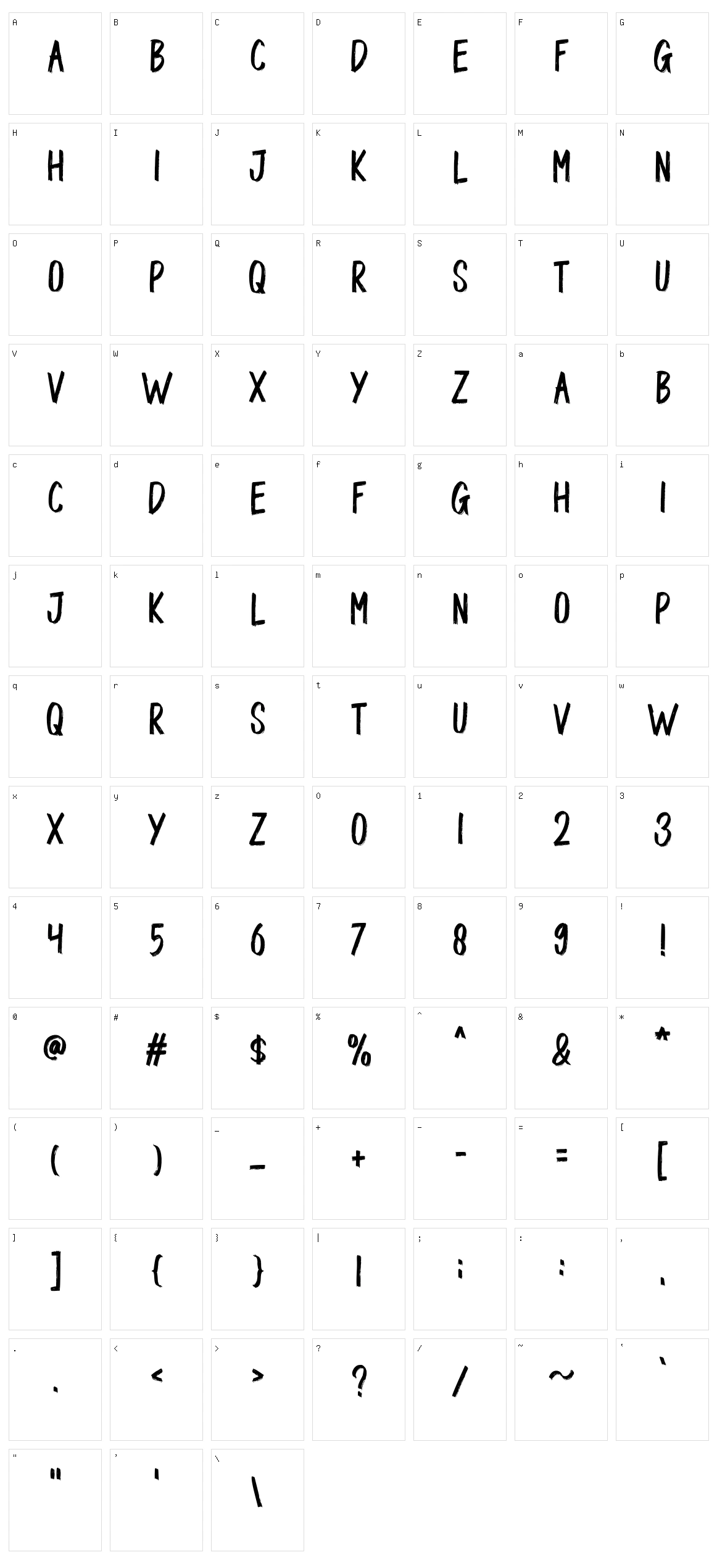
The free font Little Nightmare is carefully designed by Graphix Line Studio, showcasing a thoughtful balance of creativity and usability and falls under the Horror font style. When you download the ZIP file, it contains only 1842.16 KB of font files, making it lightweight and quick to download. Please review the license details below to understand permitted usage and distribution rights. If license information is not available, we recommend using this font for personal projects only or contacting the author directly for commercial usage permissions.